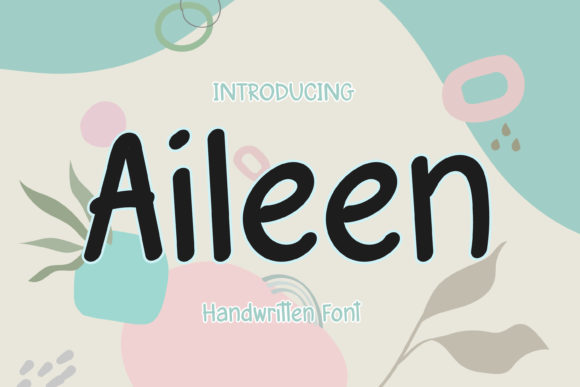
The Designer’s Delight: Aileen Font
I’ll never forget the time I was working on a project for a children’s brand, and I was struggling to find the perfect font. The client wanted something playful, youthful, and fun, but not too cartoonish. I spent hours scouring the internet, trying out different fonts, but nothing seemed quite right. That was until I stumbled upon Aileen Font. ✨
Aileen is a cute and playful handwritten font that instantly caught my attention. Its incredibly youthful feel was exactly what I needed to bring the brand to life. In this article, I’ll share my experience with Aileen Font, its features, and how to use it to take your design projects to the next level.
- ✨ Aileen’s playful and carefree vibe is perfect for designs that need a youthful touch.
- ✅ The font is highly legible, even at small sizes.
- 💕 The character set is extensive, with plenty of OpenType features to explore.
- 🎉 Aileen’s versatility makes it suitable for a wide range of design projects, from branding to packaging.
While Aileen Font is an excellent choice for many design projects, there are a few things to keep in mind: 🤔
- ⚠️ Aileen’s playful nature may not be suitable for very formal or corporate designs.
- 😐 Some users may find the font a bit too casual for their taste.
The Story Behind Aileen Font
Aileen Font was designed by a team of creatives who wanted to create a font that captures the essence of youthfulness and playfulness. The font’s design inspiration comes from the handwriting of a young girl, with its irregularities and quirks making it instantly recognizable. 💕
Q: Is Aileen Font suitable for body text?
A: While Aileen Font is highly legible, its playful nature may not make it the best choice for long-form body text. However, it’s perfect for headings, titles, and short paragraphs.